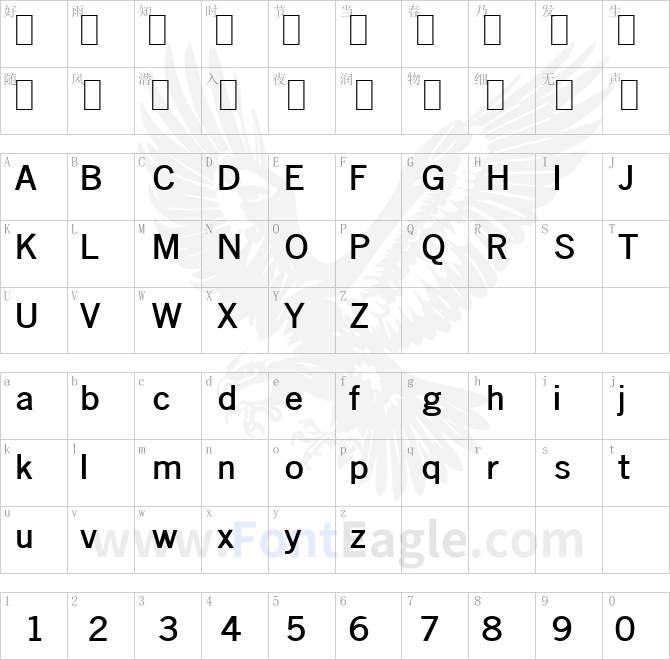
- Font name:Matterhorn-Extended
- Font Subfamily ID:CSC:Matterhorn-Extended Bold
- Font Full Name:Matterhorn-Extended Bold
- Postscript:Matterhorn-Extended-Bold